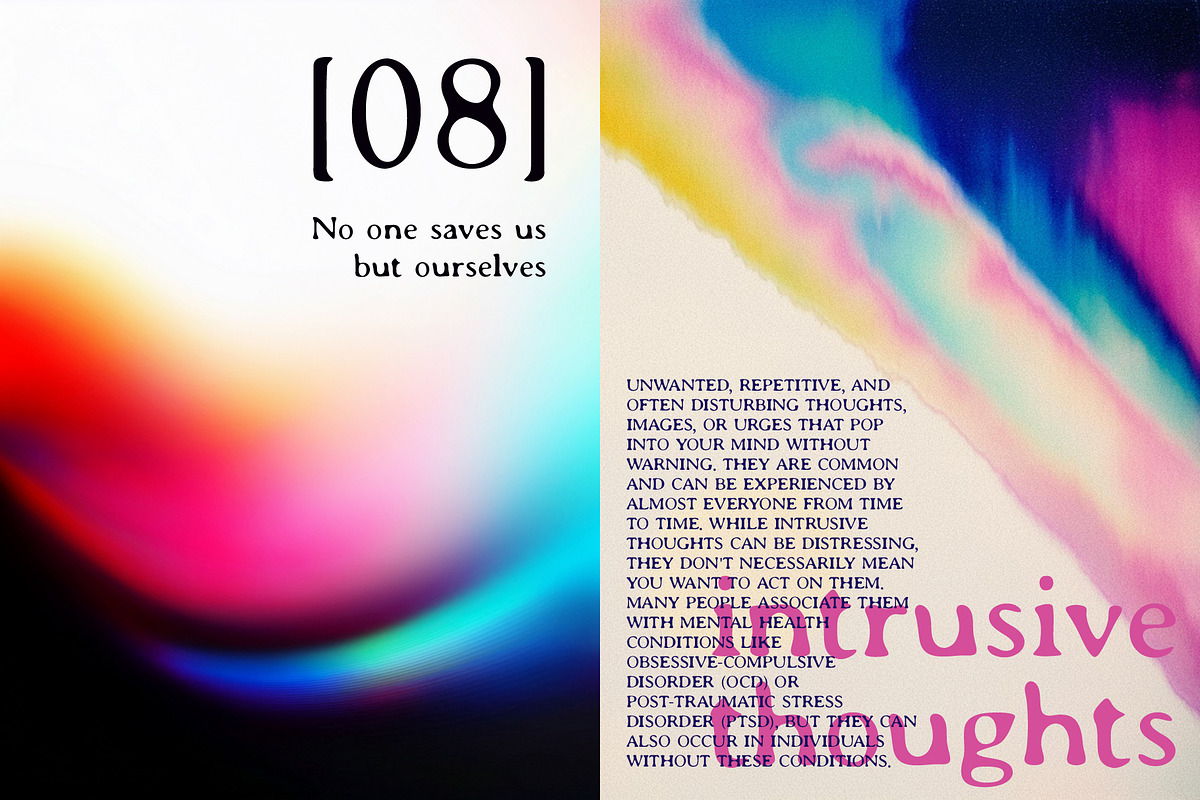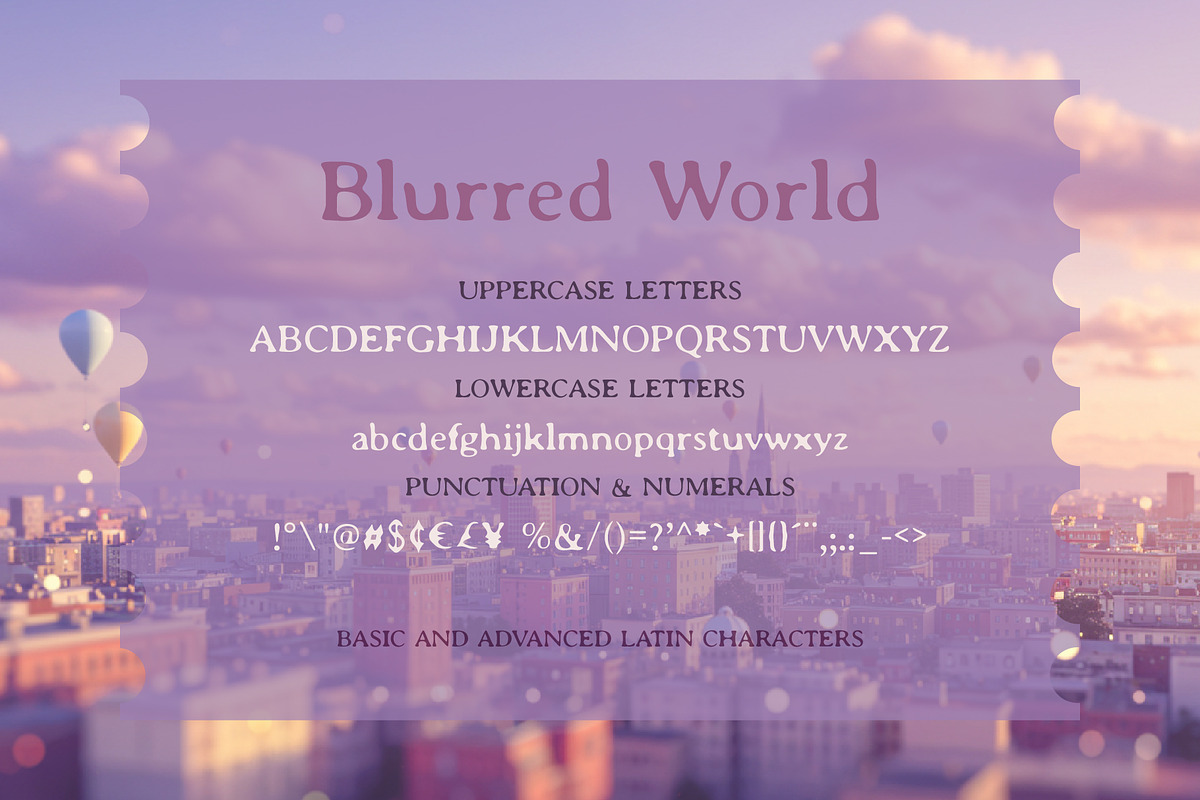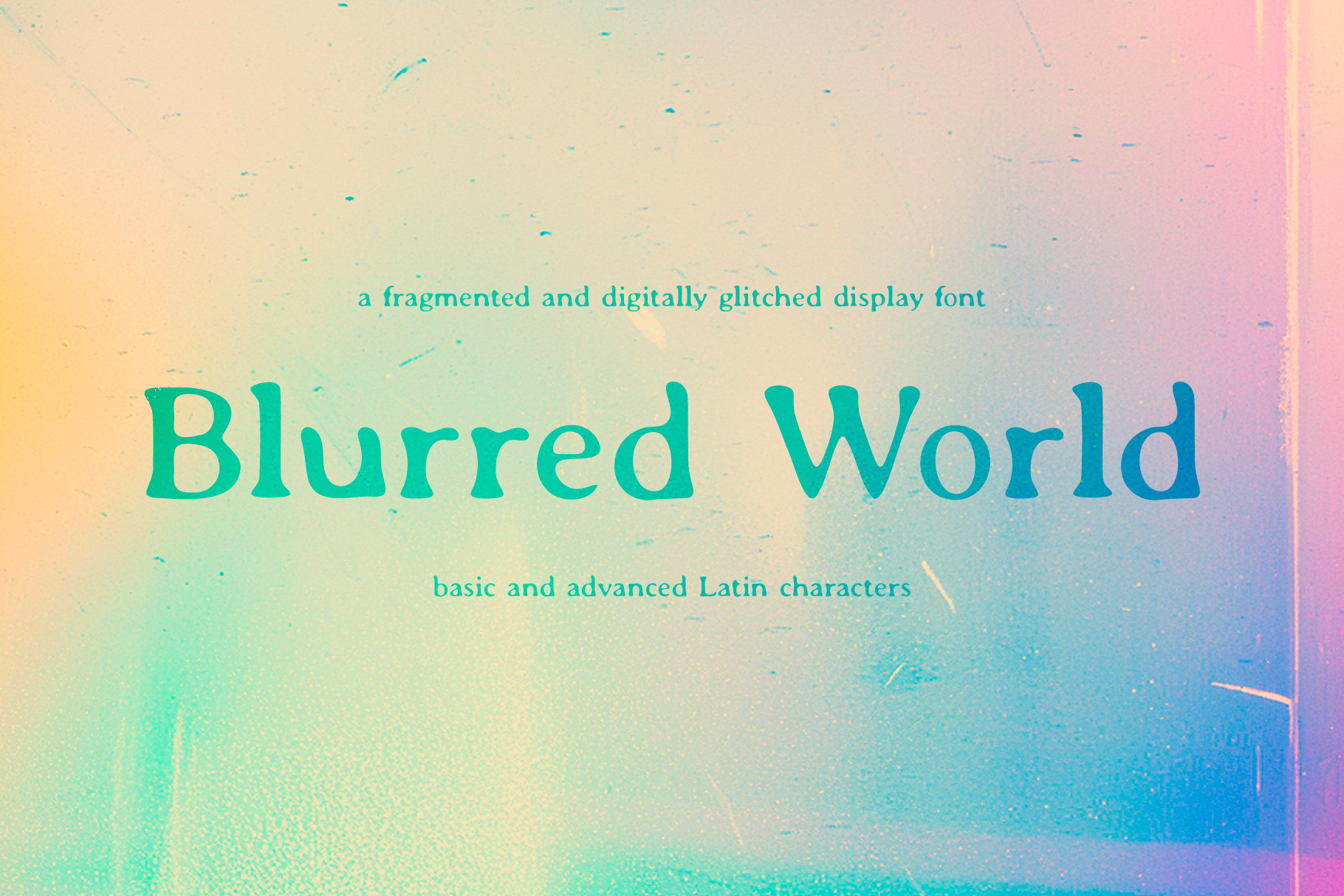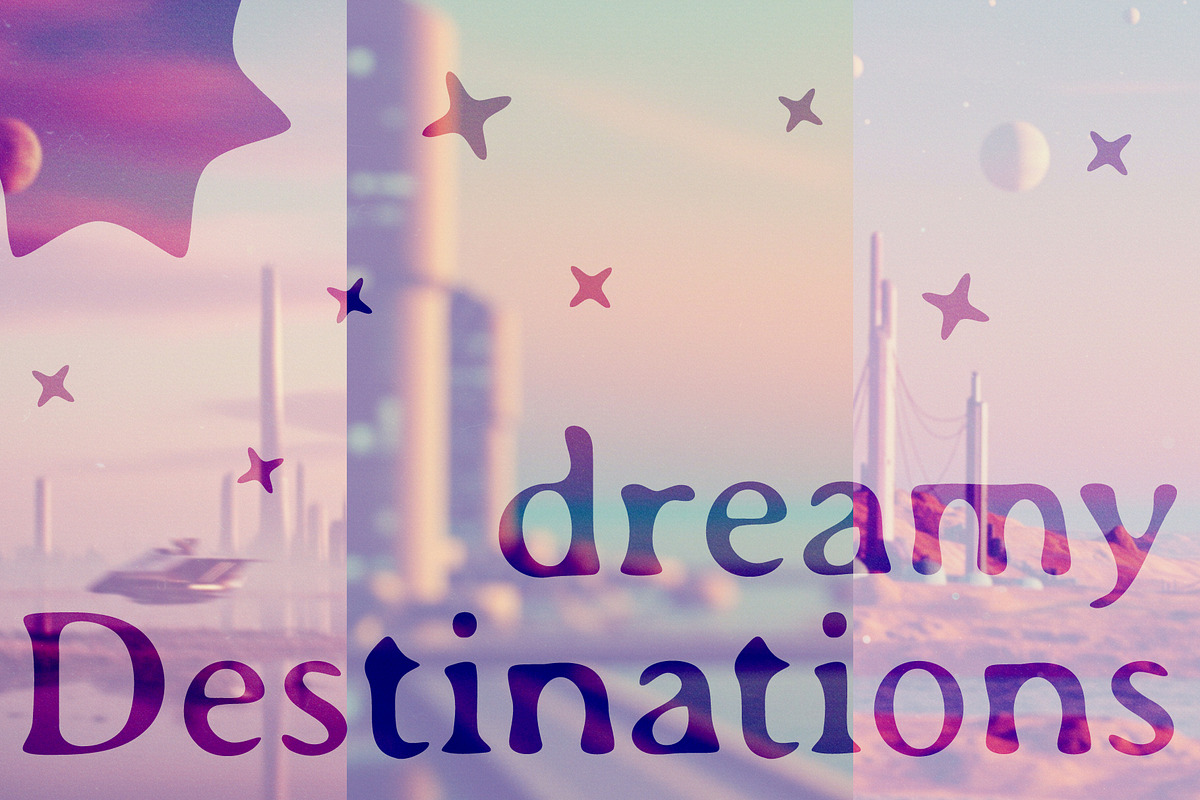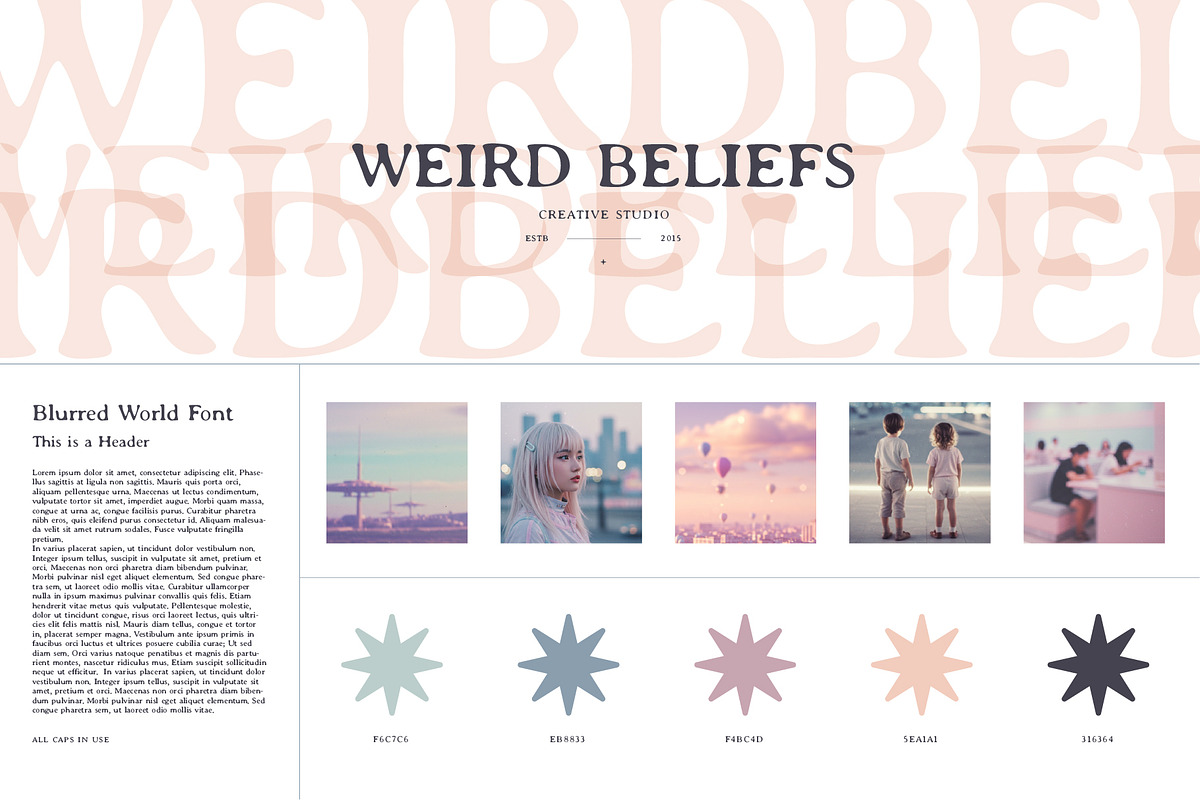
Blurred World | Display Font
A fragmented and digitally glitched display font with basic and advanced Latin characters.
Great for:
- Poster titles
- Album covers
- Fashion branding
- Vaporwave or retro-themed artwork
- Experimental interfaces
Blurred World is mysterious, atmospheric and avant-garde with ethereal or dreamlike curves. It evokes a sense of glitch, haze, or altered perception. Futuristic and abstract feel. Each character is geometrically constructed, often with unexpected line breaks or gaps, giving it a fragmented and digitally glitched aesthetic. It has high visual impact when used in titles, logos, or large-scale design elements.
Design Vibe:
- Cyberpunk
- Glitch-art
- Dystopian future / virtual reality
- Feels like a mix between a digital font and deconstructed typography.
Ideal Use Cases:
- Branding for tech, gaming, or sci-fi projects
- Posters for music festivals or electronic acts
- User interfaces in retro-futuristic games or films
- Experimental zines or visual art
It includes,
- Uppercase letters
- Lowercase letters
- Punctuation and numerals
- Basic and advanced Latin characters